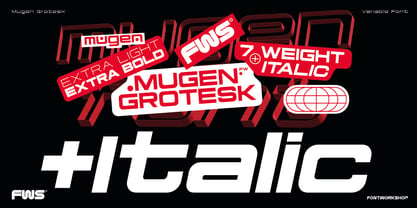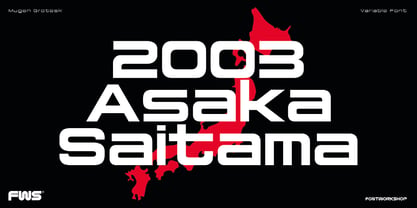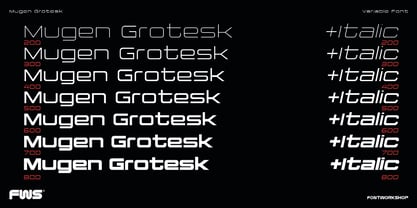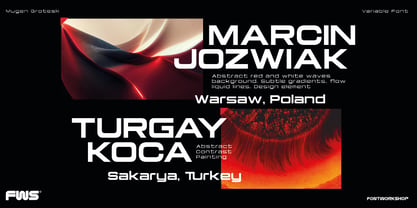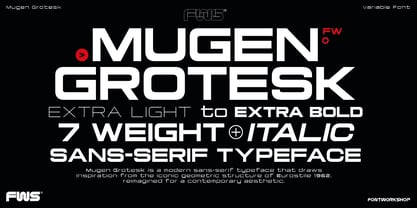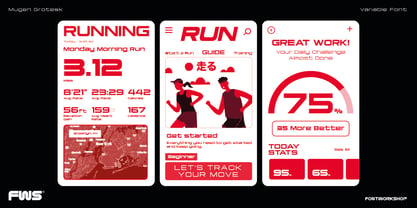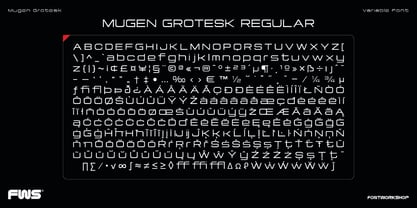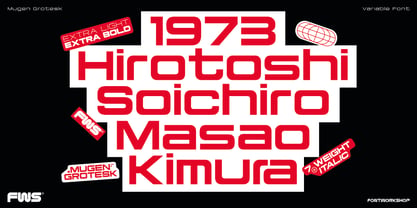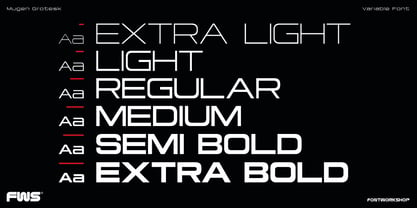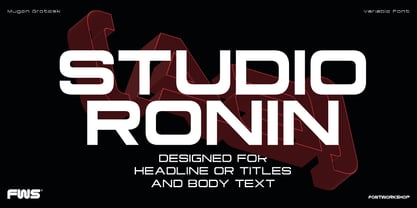
Mugen Grotesk
von Font Workshop
Die Schriftfamilie Mugen Grotesk wurde von Suci Indah Sari entworfen und von Font Workshop veröffentlicht. Mugen Grotesk enthält 14 Stile und Familienpaketoptionen. Mehr über diese Familie
Mugen Grotesk is a modern sans-serif typeface that draws inspiration from the iconic geometric structure of Eurostile 1962, reimagined for a contemporary aesthetic. Featuring squared letterforms with subtly rounded corners, Mugen Grotesk combines industrial strength with refined precision—making it ideal for branding, editorial, UI design, and display use. The typeface maintains a strong, confident presence through its wide stance and balanced proportions, while introducing cleaner curves and updated terminals for improved readability and versatility. Whether used in bold headlines or minimal layouts, Mugen Grotesk delivers a sleek, futuristic tone with a timeless edge.
Designer: Suci Indah Sari
Foundry: Font Workshop